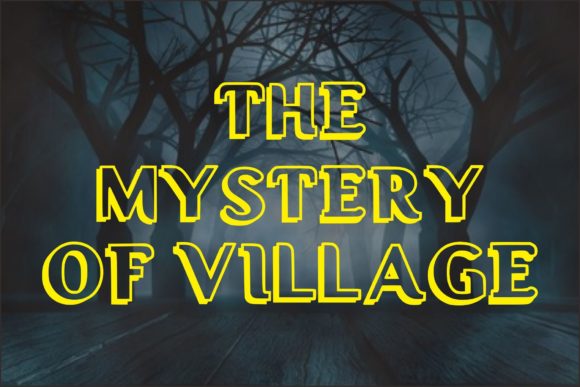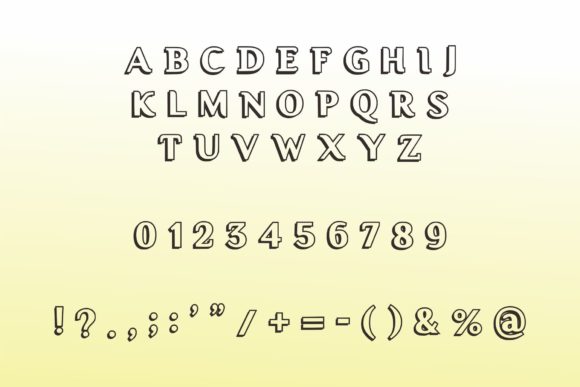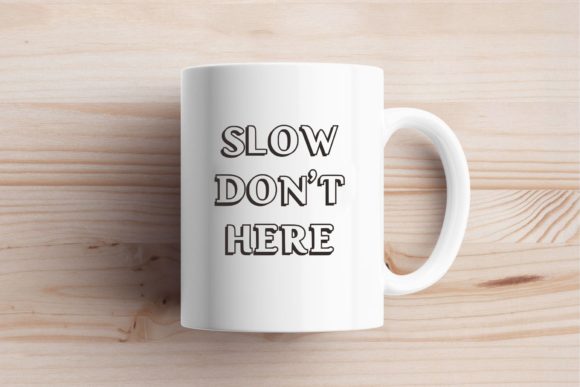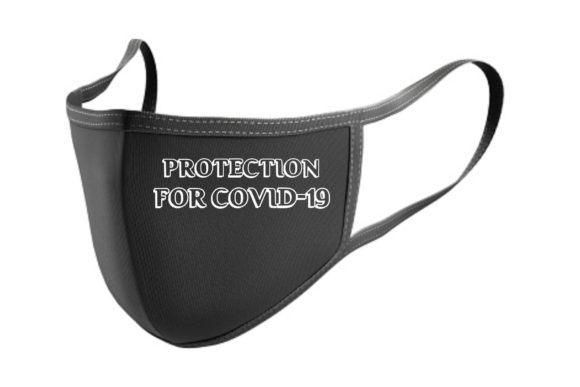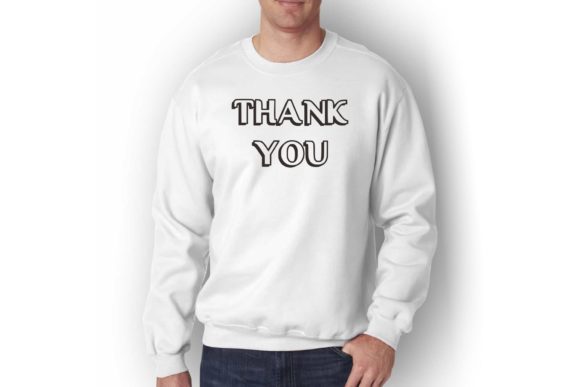
Discover the Charm of Ghost Town Font: Elevate Your Designs with Characterful Display Typography
In the world of typography, fonts play a crucial role in conveying the tone and personality of a design. For crafters, designers, and anyone looking to add a touch of personality to their digital creations, the Ghost Town Font is an exceptional choice. This distinctive display font is not just a typeface; it’s an invitation to bring warmth, character, and impeccable hospitality into your work.
What is Ghost Town Font?
Ghost Town is a unique and characterful display font designed to capture the essence of hospitality and warmth. Its distinctive style makes it perfect for a wide range of applications, from crafts and digital designs to presentations and greeting cards. The font’s charm lies in its ability to convey a sense of welcome and friendliness, making it an ideal choice for projects where personality and approachability are key.
Key Features of Ghost Town Font
- Characterful Design: Ghost Town boasts a design that is both quirky and charming, ensuring your projects stand out with personality.
- Versatility: Whether you’re working on crafts, digital designs, presentations, or greeting cards, Ghost Town adapts seamlessly, adding a touch of warmth to any project.
- Hospitality at Its Core: The font is specifically designed to convey a sense of impeccable hospitality, making it perfect for businesses or individuals looking to add a welcoming touch to their brand or personal projects.
- Ease of Use: Ghost Town Font is user-friendly, making it accessible for designers of all skill levels to incorporate into their work effortlessly.
Applications of Ghost Town Font
The versatility of Ghost Town Font means it can be used in a multitude of ways. Here are some ideas to get you started:
- Crafts: Add a personal touch to your handmade crafts, such as DIY signs, banners, and cards, with the unique and friendly vibe of Ghost Town.
- Digital Designs: Elevate your digital projects, including social media graphics, blog headers, and website elements, with a font that stands out.
- Presentations: Make your presentations more engaging and memorable with a font that captures attention and conveys your message in a friendly and approachable way.
- Greeting Cards: Create personalized and heartfelt greeting cards for any occasion, adding a touch of warmth and personality.
Why Choose Ghost Town Font?
In a sea of generic fonts, Ghost Town offers a breath of fresh air. Its distinctive character ensures that your designs are not just seen but remembered. By choosing Ghost Town Font, you’re opting for a typeface that:
- Offers a unique aesthetic that sets your work apart.
- Communicates warmth and hospitality, perfect for brands or projects with a personal touch.
- Is versatile enough to be used across various mediums and projects.
Ghost Town Font is more than just a typeface; it’s a design element that can transform your projects with its characterful and distinctive style. By incorporating this font into your work, you’re not just choosing a font; you’re opting for a way to communicate warmth, hospitality, and personality. Whether you’re a designer, crafter, or simply someone looking to add a personal touch to your digital creations, Ghost Town Font is an excellent choice. Discover the charm of Ghost Town and elevate your designs with its unique and engaging typography.